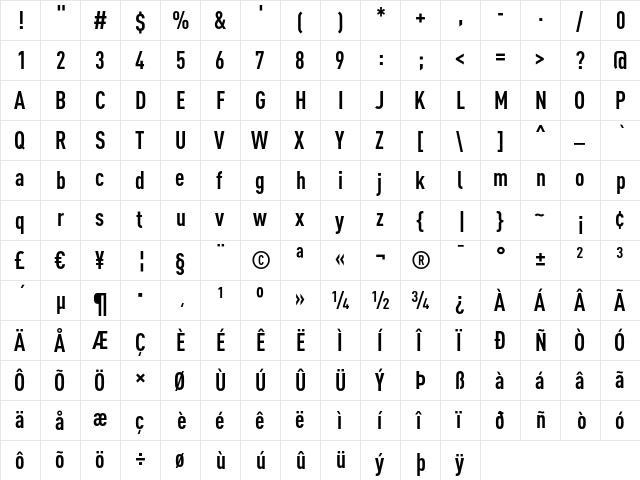
DINCond-Bold Regular
Design Context for DINCond-Bold Typeface
DINCond-Bold is a composed and adaptable typeface that performs quietly and consistently across a wide range of design contexts. Its bold stroke weight gives it real presence on the page. The condensed width makes it efficient for tight spaces without sacrificing legibility.